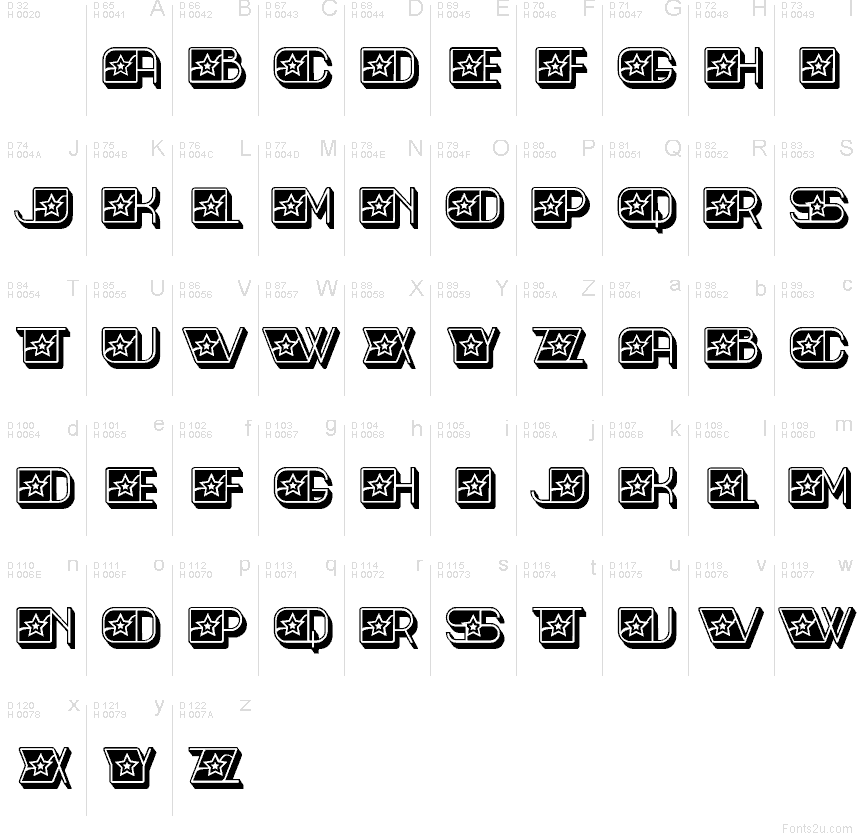
Wizard Extravagant Regular
Wizard Extravagant font by Vladimir Nikolic is a free decorative display typeface that shouts magic from every letter. Chunky black letterforms are carved with bright star cutouts and sharp, angled tops, like neon marquee tiles from a retro magic show. The layered outlines give it a thick, almost plastic edge, so each word feels like a logo ready to snap into place.
Using Wizard Extravagant, you can conjure up bold titles for kids’ posters, party invitations, festival signage, gaming overlays, YouTube thumbnails, or event logos. This free font thrives at large sizes where its stars and outlines can really sparkle. For a balanced layout, pair the Wizard family’s Extravagant style with a simple geometric sans for body text and let the Wizard letters handle the theatrics.